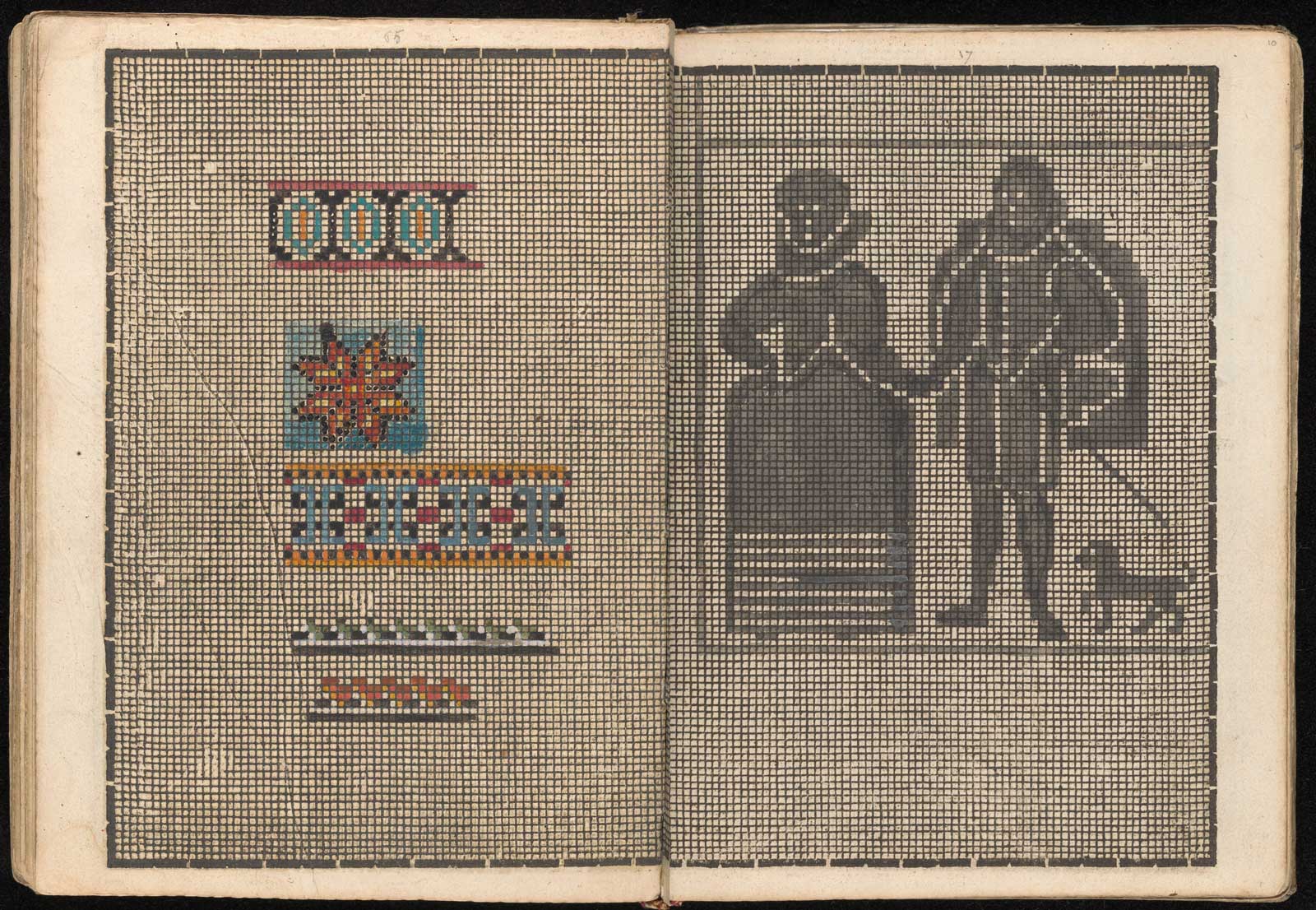
The first fashion books, Renaissance pixel fonts and the invention of graph paper
Fashion is a global, multi-billion dollar industry. From haute couture to $5 tees, it is inescapable — at least for those of us who wear clothes, that is. It is supported and promoted by vast publishing enterprises of glossy magazines and books and million-dollar advertising budgets. And although, arguably, we might say that fashion got its start when humans began wearing clothes 170,000 years ago, fashion as an industry was only really possible after the Industrial Revolution. But centuries before Coco Chanel and Yves Saint Laurent, and long before the first fashion shows of the late nineteenth century, we find seeds of an industry in the very first fashion publications.
When it comes to the ‘first fashion book’, Matthaus Schwarz comes to mind, (1497–c. 1574), the German accountant for Renaissance ‘billionaire’ banker Jakob Fugger. Over the course of four decades (1520–60), Schwarz commissioned local artists to faithfully catalogue, in detailed watercolors, his and his brother’s sartorial vie quotidienne.
Although Schwarz’s handwritten book, Klaidungsbüchlein, is a marvel of sartorial splendor, his endeavors were a personal chronicle, rather than part of a broader enterprise. In that respect he was well ahead of his time, born 500 years too soon for Instagram and the selfie revolution. But the first true fashion publications were not single-copy or unique handwritten books but printed books and booklets. We shall come to them in a moment.
New genres
The early decades of the sixteenth century were fertile grounds for new genres of books. When the printed book was in its infancy, printers and publishers were usually risk averse, printing mostly those books that had been popular even before the invention of print. Medieval staples like religious works, school text books (e.g. Latin grammars) and medieval tales of courtly love and romance. By the next century, the printing industry had found its feet and was all the more ready to experiment with new genres of literature. An added factor in their willingness to take risks was economic: a growing book-buying public and falling paper costs meant books became cheaper to produce.
Ornament
At the end of the fifteenth century, printers began to experiment with prints of ornamental designs — as single sheets or gathered into booklets. Their purpose was artistic and inspirational — a kind of Renaissance look-book, if you like — or a way to share and disseminate new ornamental designs and motifs.
Those patterns were used across many arts and crafts. Their broad audience is even explicitly referenced in their titles. One German ornament book of 1538 is titled (long before short titles were a thing), “A new and wonderful little art book such as has never been seen by anyone or published; very useful for painters, woodcarvers, goldsmiths, stonecutters, carpenters, armorers, and cutlers.”* The same patterns might be engraved on a dinner-knife handle or on a piece of jewelry or feature as an architectural detail on a wooden screen or carved in stone or embroidered in fabric for soft furnishings, rugs, tapestries or clothing. Although this kind of book was aimed primarily at professionals, they were sometimes marketed to masters and amateurs alike. The same author of the above-mentioned ornament book of 1538, states that his book is intended, ostensibly, for those lacking the artistic talents to draw their own designs, for those whom we nowadays might term hobbyists.
The popularity of ornament books sped up the spread and international exchange, especially between East and West, of new decorative designs and motifs. They were usually small-format, slim volumes or booklets and thus relatively inexpensive. The single-sheet ornament and artistic prints later became a flourishing industry in their own right, with Hieronymus Cock (c. 1510–1570), the famed Flemish painter, printmaker and publisher, instrumental in their early success.
Da Vinci & Dürer
Arguably the most famous patterns to emerge at this time are those designed in the 1490s by none other than Leonardo da Vinci. While in Milan, he applied his talents to the design of a series of six intricate interlaced designs, known as the ‘The Six Knots’.
Such knot patterns were the height of fashion in 1490s Milan and can be seen adorning the dress of Bianca Sforza in Da Vinci’s striking ink and colored chalk portrait.
To make Da Vinci’s rare series of knot designs available north of the Alps, they were copied as woodcuts by Leonardo’s Northern Renaissance counterpart, the brilliant Nuremberg artist and printmaker, Albrecht Dürer (1471–1528).
The First Pattern Books
From this new ornament book genre, we begin to witness specialized editions, focusing on patterns and ornaments for specific crafts. The pattern or model book was one of the most popular sub-genres to emerge. They contain patterns for lacemakers and weavers for the design of textiles and thus can be considered the first printed fashion publications.
It is no accident that the first fashion publications should appear during this time. New materials and fabrics, innovative tailoring and sewing techniques and growing urban populations, meant that clothes came to be, more than ever, expressions of personal will, of individualism and social status. As Ulinka Rublack writes in her introduction to The First Book of Fashion, that during the Renaissance “a passion for fashion became a broad social phenomenon.” The earliest known textile pattern book, the first printed fashion publication, was printed in Augsburg in Germany in about 1523, at the print-shop of Johann Schönsperger the Younger, a letterpress printer and fabric printer with workshops in Augsburg in the south and Zwickau in central Germany. Schönsperger printed several other popular model books during the 1520s — his second went through five editions. Among their pages of design patterns for weaving and embroidery are letter designs These Renaissance ‘pixel’ fonts, centuries before their appearance on our screens, would have proven invaluable additions to those wishing to embroider initials onto a piece of clothing or a pithy Latin phrase onto a tapestry.
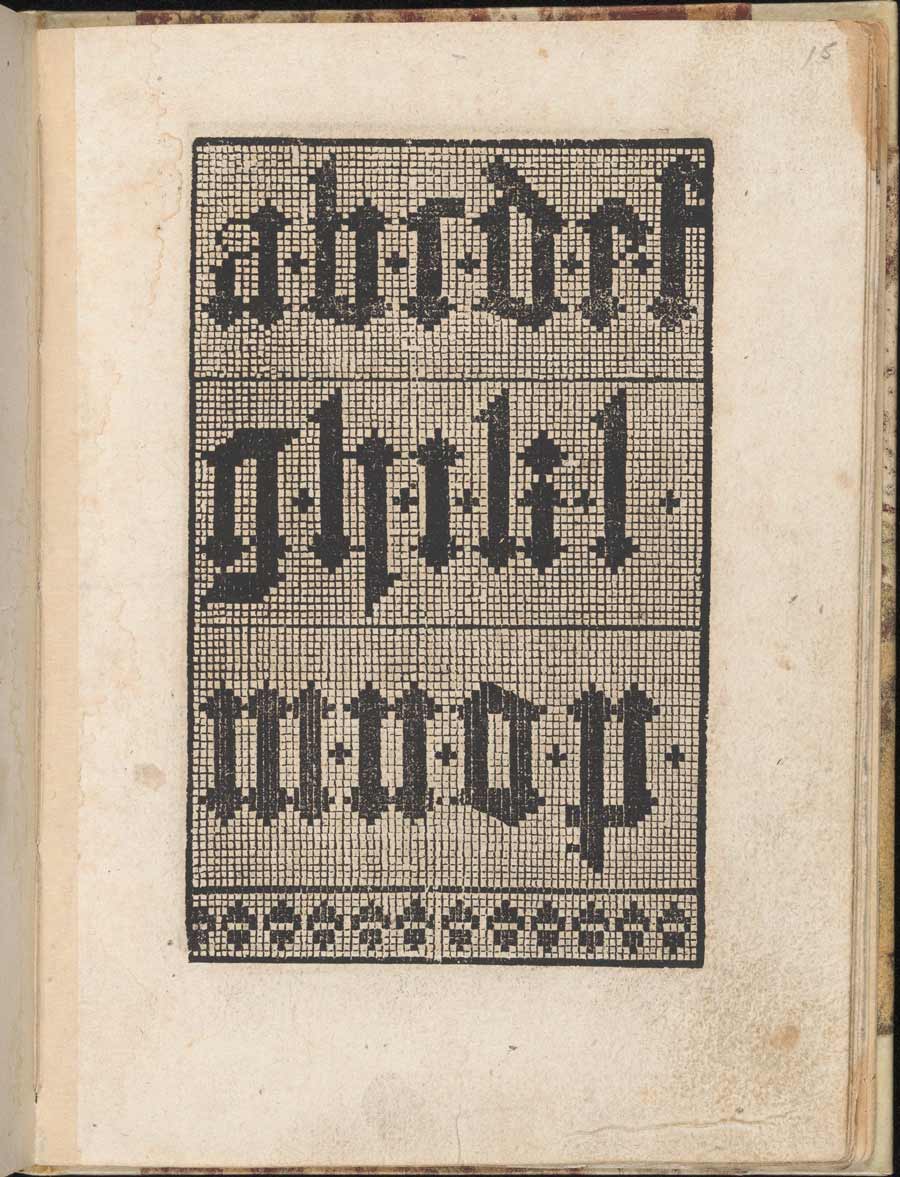
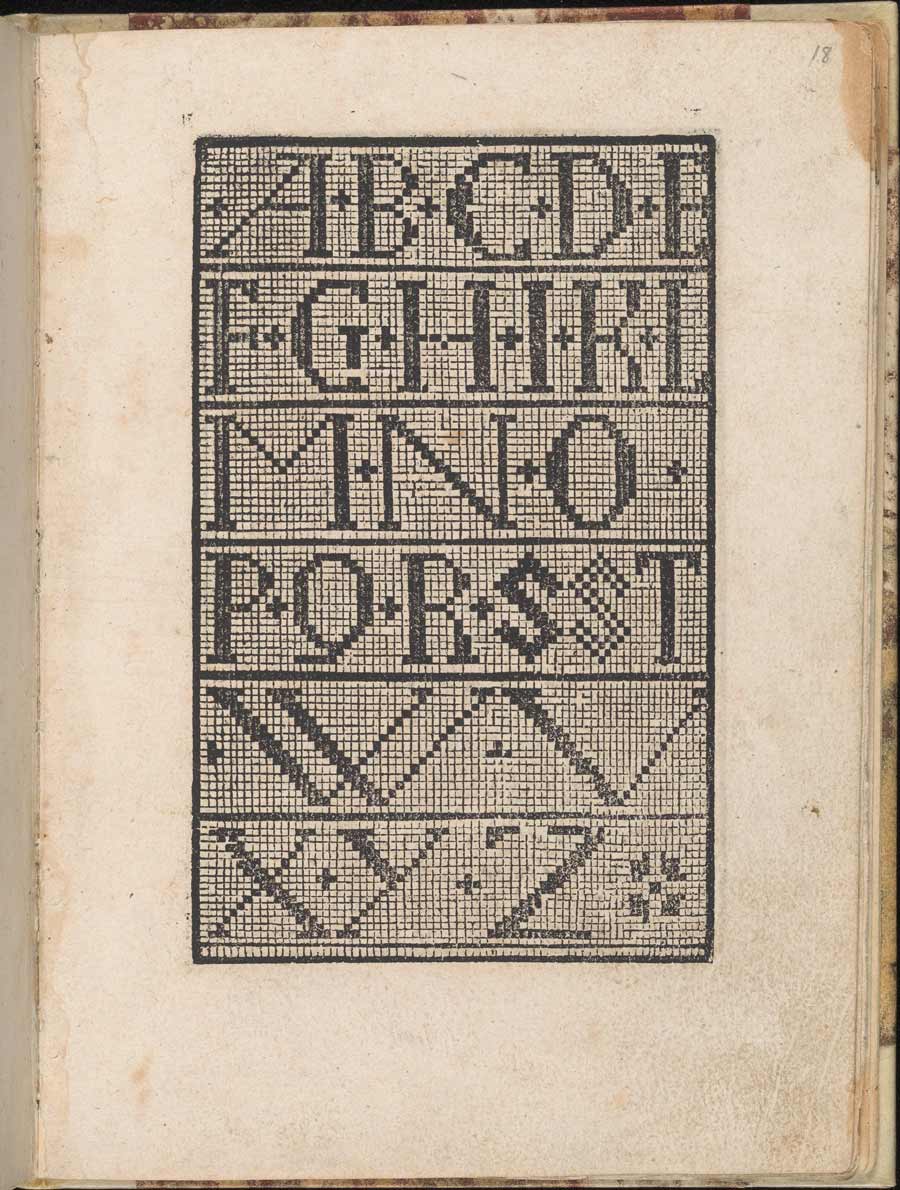
Of Schönsperger’s first pattern book, only a single copy has survived. In fact, intact pattern books are now very rare. They did not sit pristine on library shelves or on the desks of scholars, but were put to use in workshops, sewing shops, parlors and classrooms; often their pages torn out, tacked to a wall for reference, or pricked and pounced to transfer their designs onto fabric.
From Pattern Books to Prada
Even for a dyed-in-the-wool non-fashionista like me, the history of fashion, from those first printed pattern books, to the upending and technological transformations wrought by the industrial revolution and fashion born again as a burgeoning industry, is fascinating. From those first ornament prints and pattern books, the early involvement of brilliant artists like Da Vinci and Dürer and the industry, innovation and artistic talents of countless printers, tailors, lacemakers, embroiderers, weavers, engravers, and woodcutters — all forerunners of one of the world’s largest industries. So the next time you slip on your sweat pants and Jimmy Choos, you’ll be reminded of the first printed book of fashion printed in Augsburg by Johann Schönsperger in the early 1520s, of Renaissance pixel fonts and the invention of graph paper. ▦